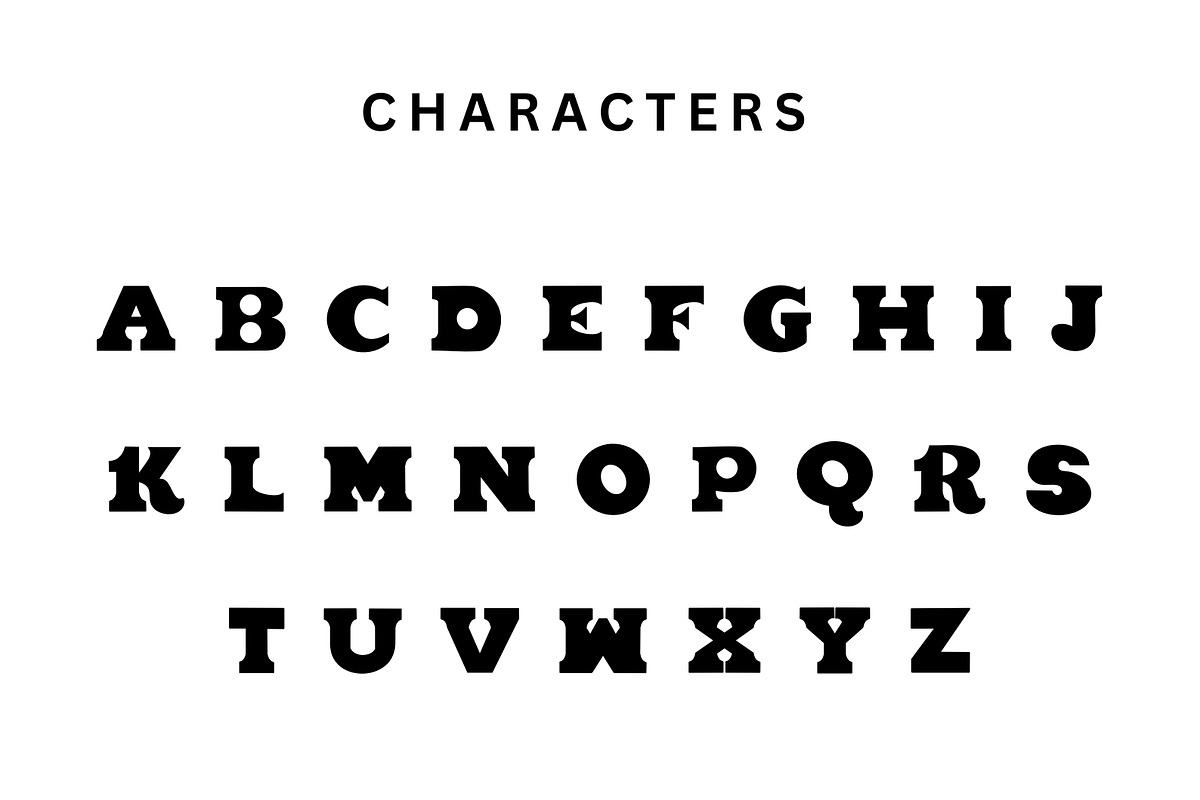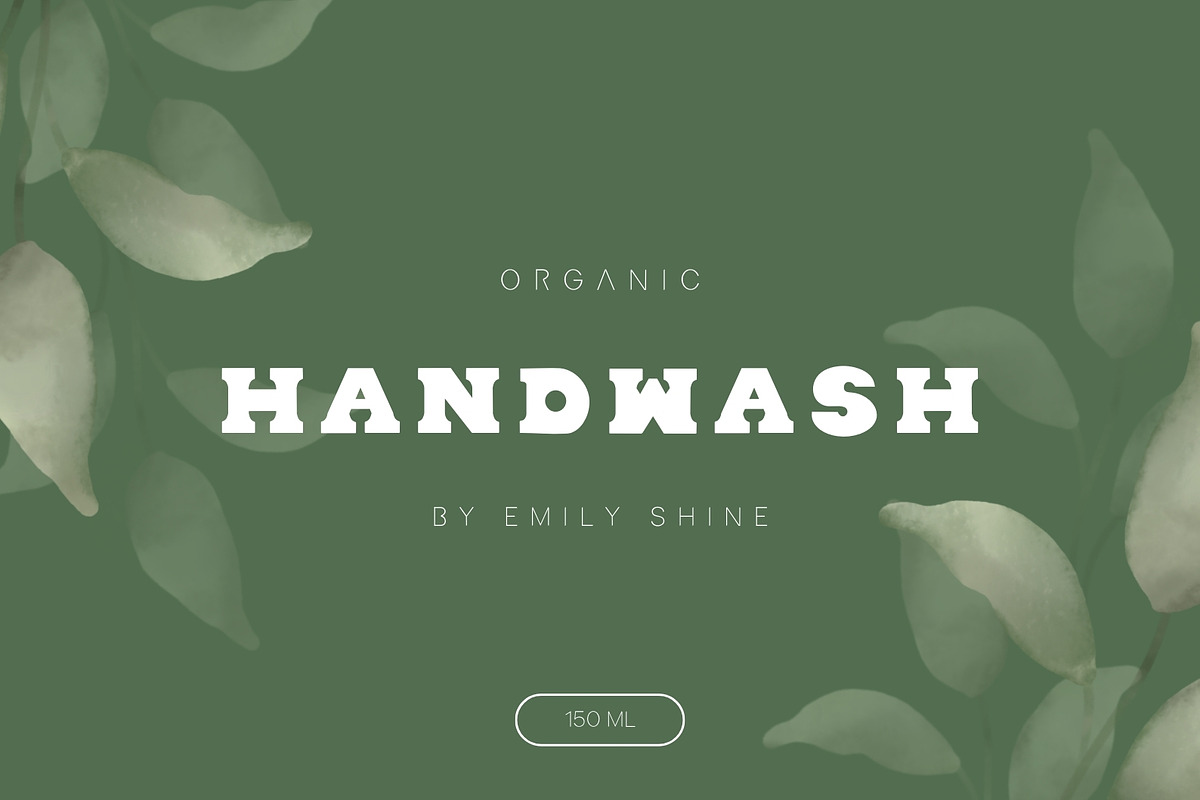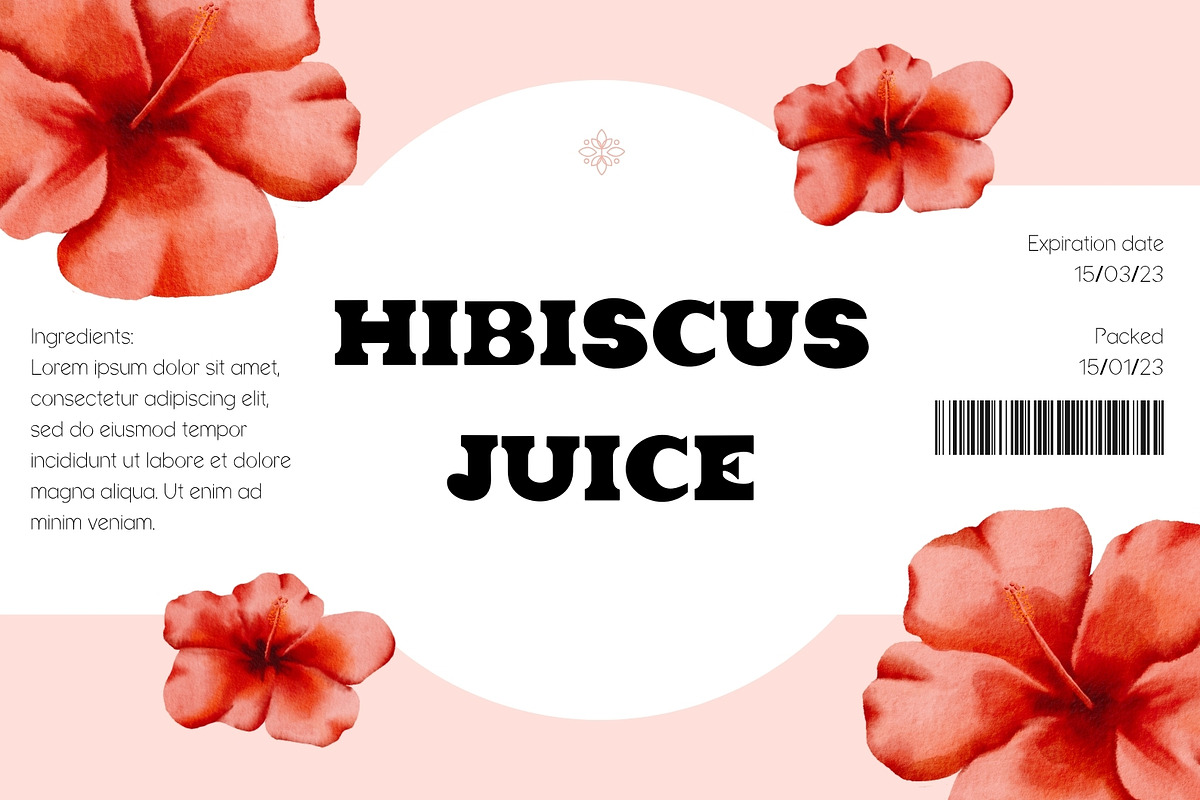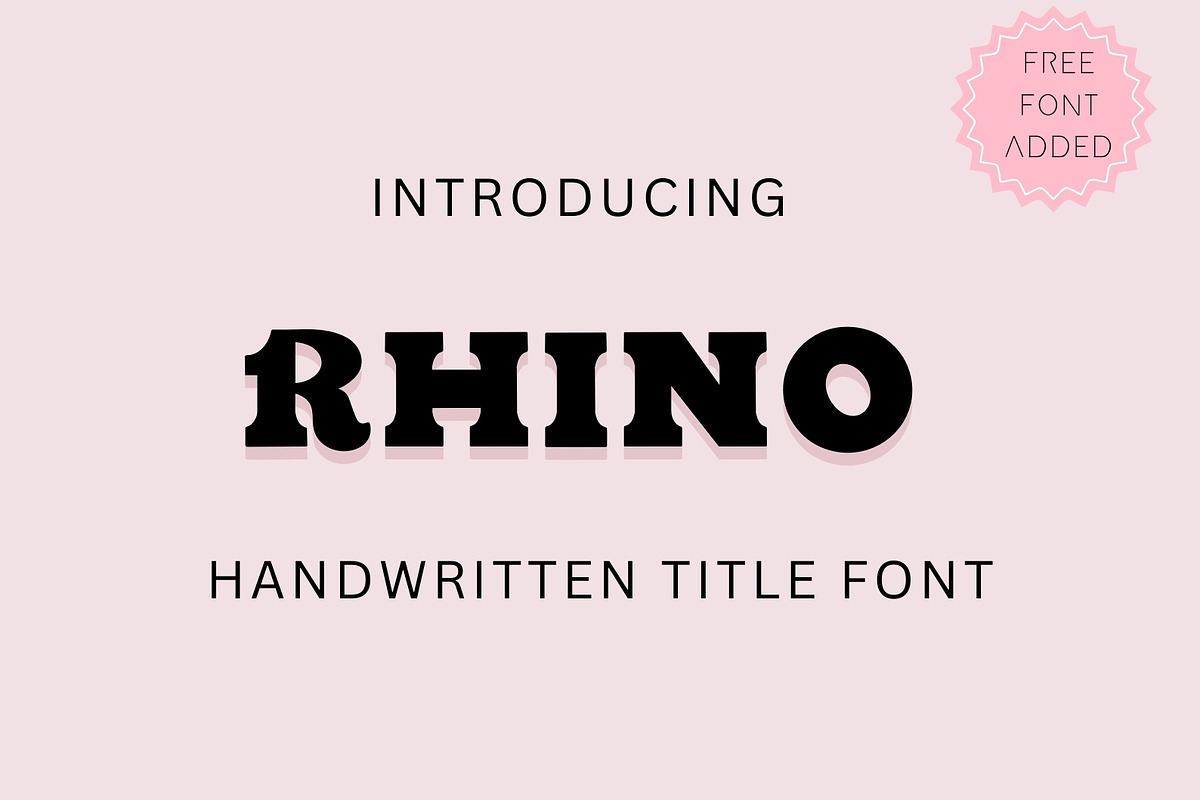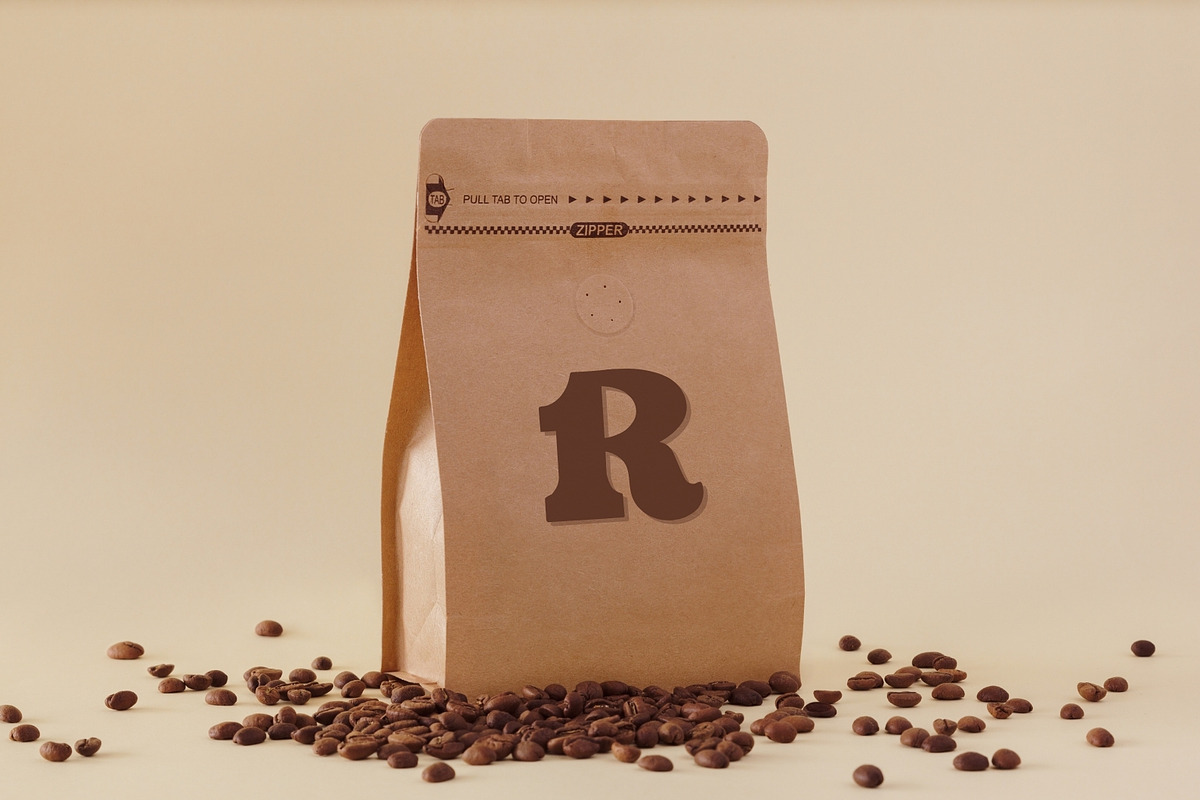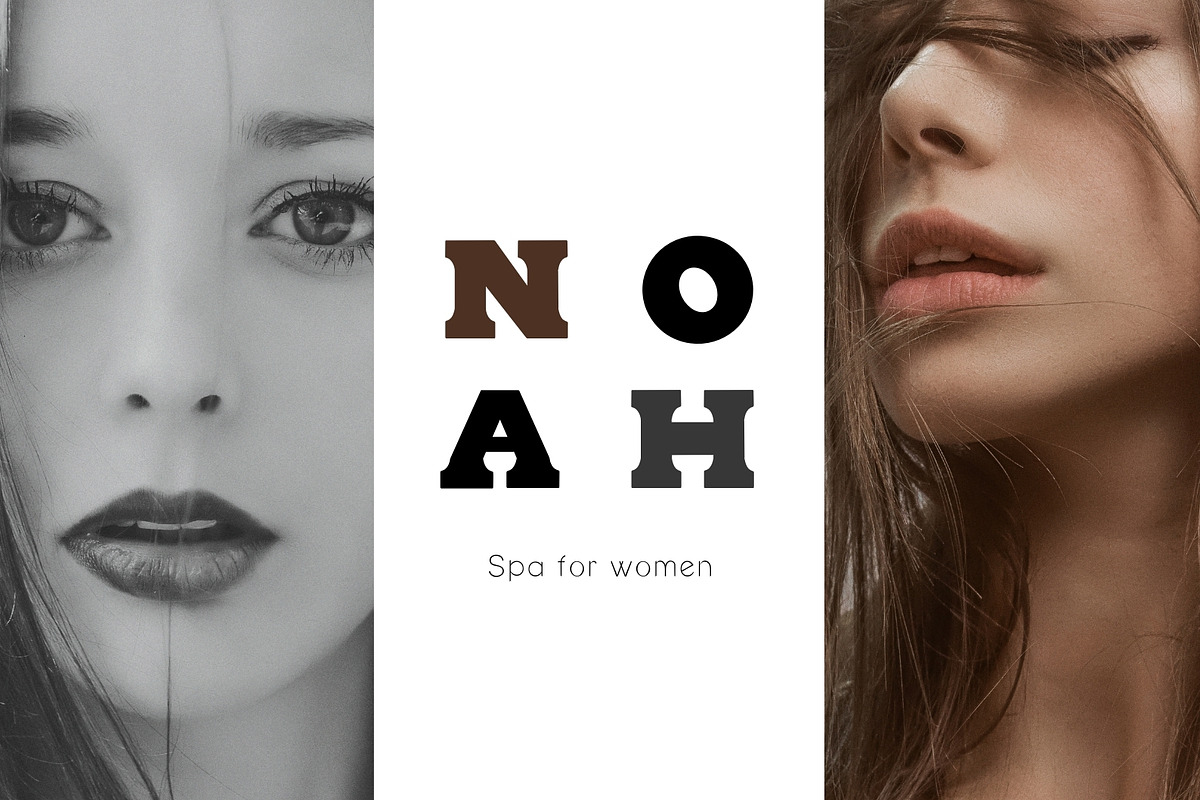
Rhino - Bold handwritten font
Rhino - Handwritten title font with serif vibes.
This font is perfect for advertising, headings, blogs title, logos, branding and more!
RHINO Font included: Caps letters.